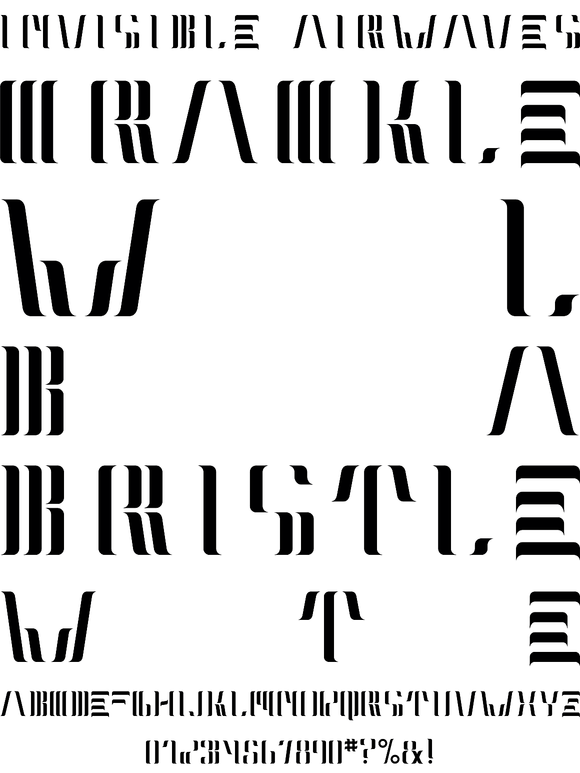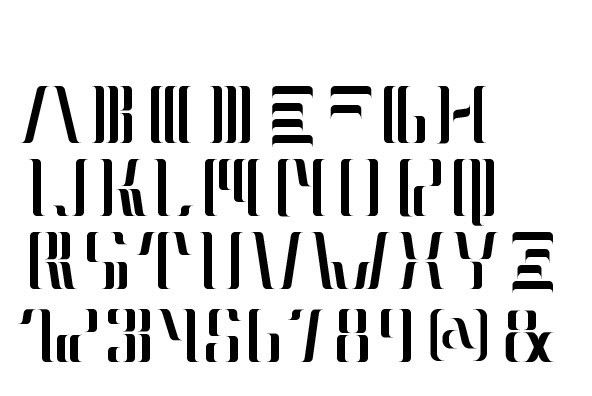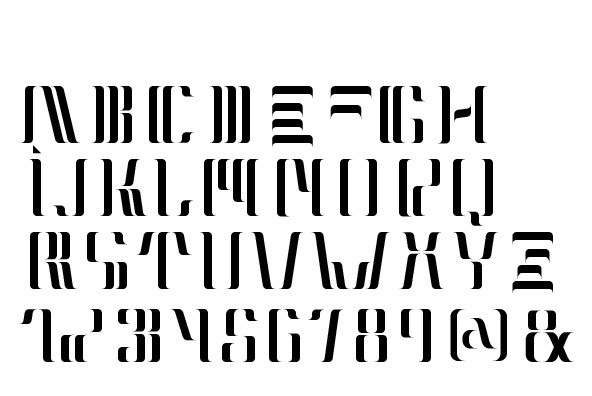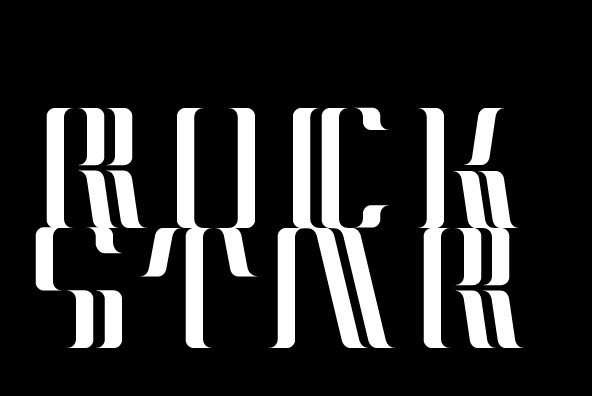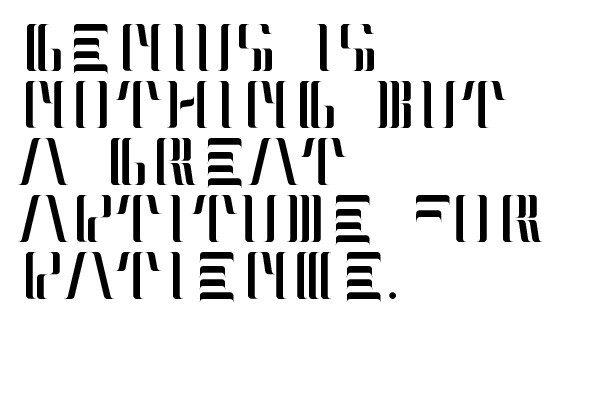
Foundry: Mostardesign
Neolux is a post-modern typeface. It has aspects of Art Deco shapes and proportions but has modern additions that make it ideal for luxury brands and modern titles.